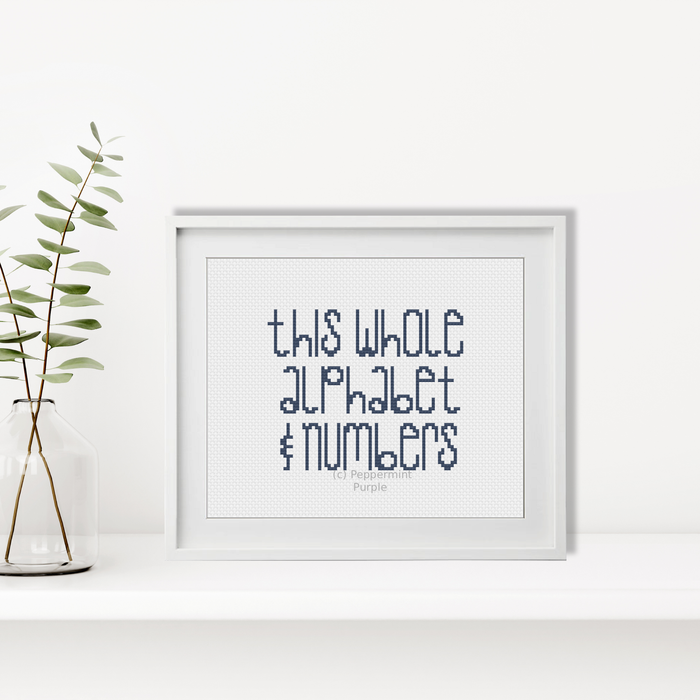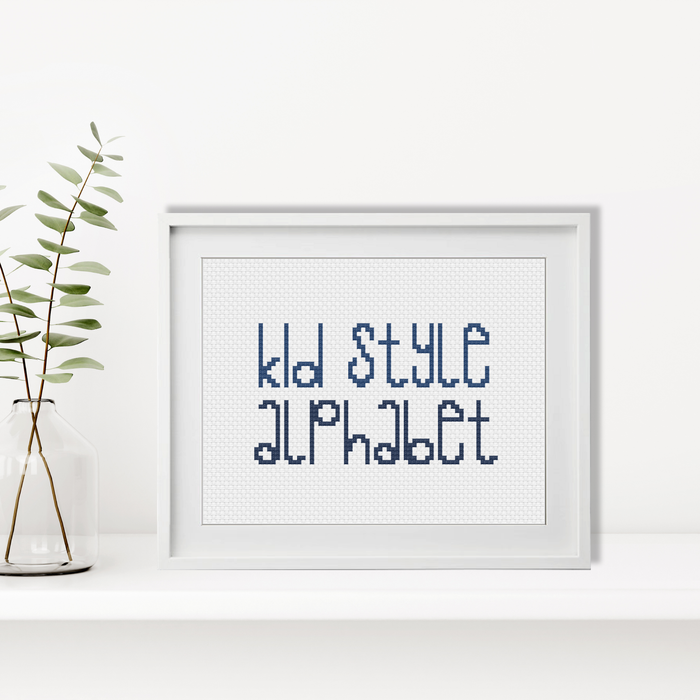
Kids Style Font
Cross Stitch Font
This Chart contains full Upper and Lower case alphabets and instructions on how to use the chart.
Tallest letter is 15 stitches high
Please note there are no ‘uppercase’ or ‘lowercase’ with this font as it’s all a mixture of the two.